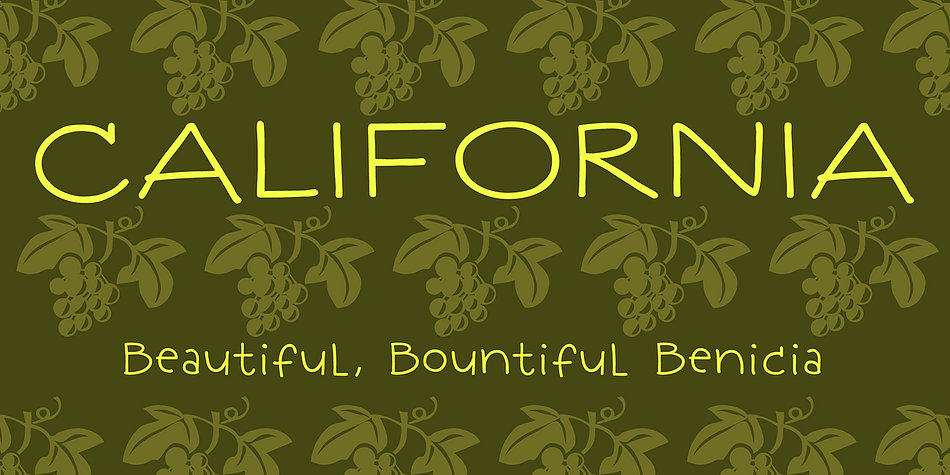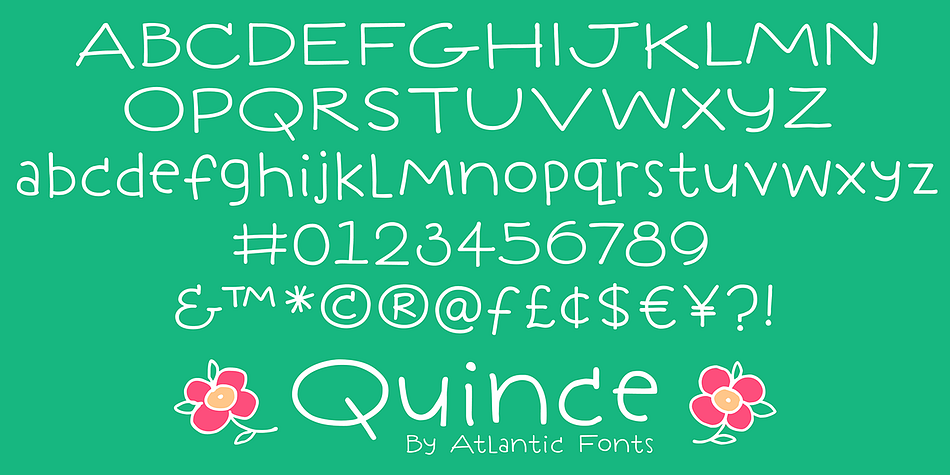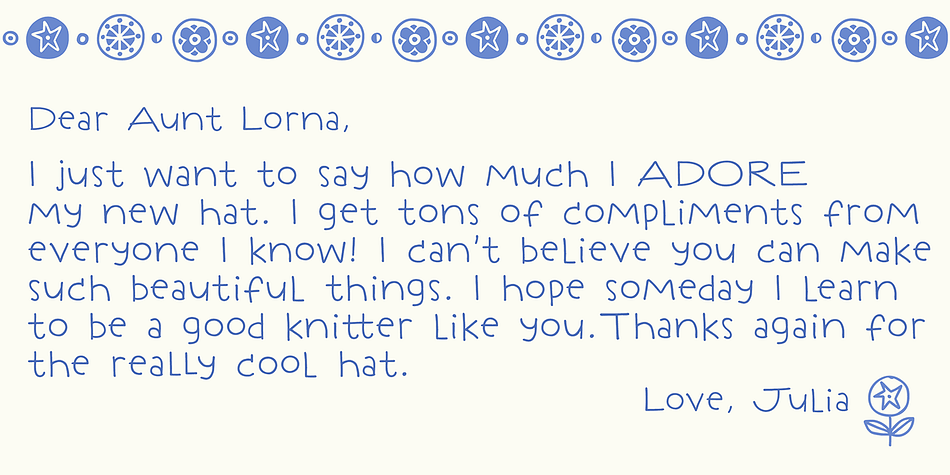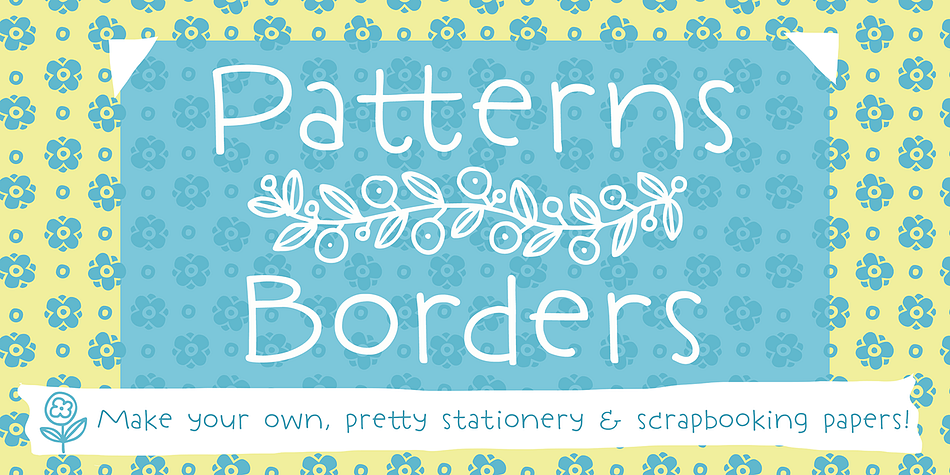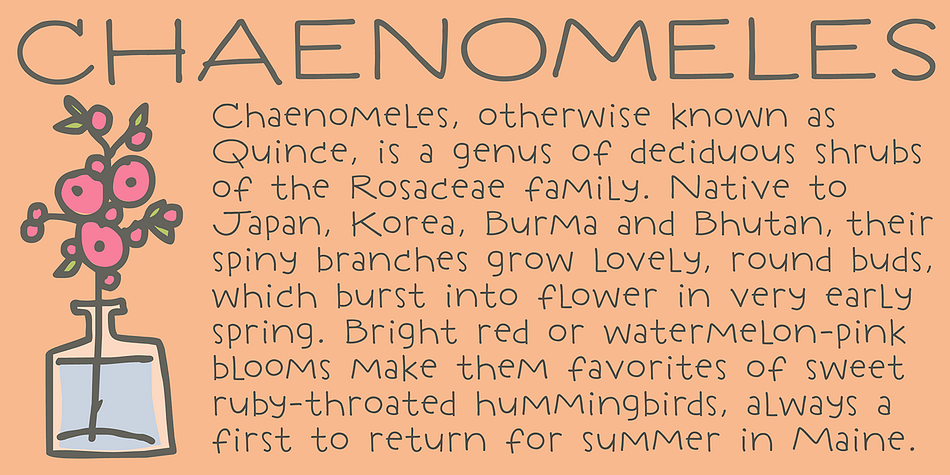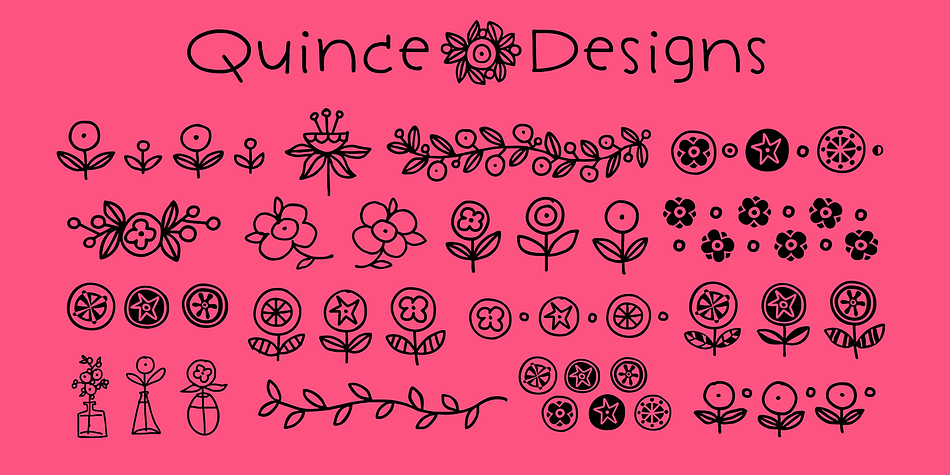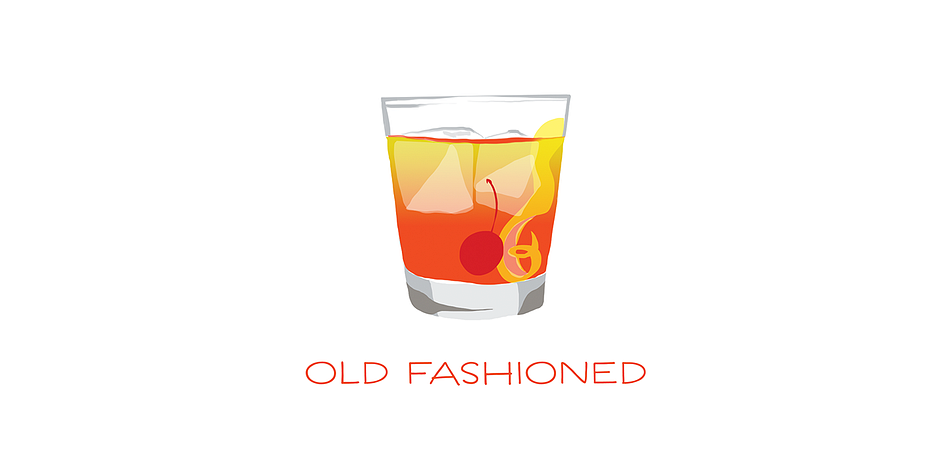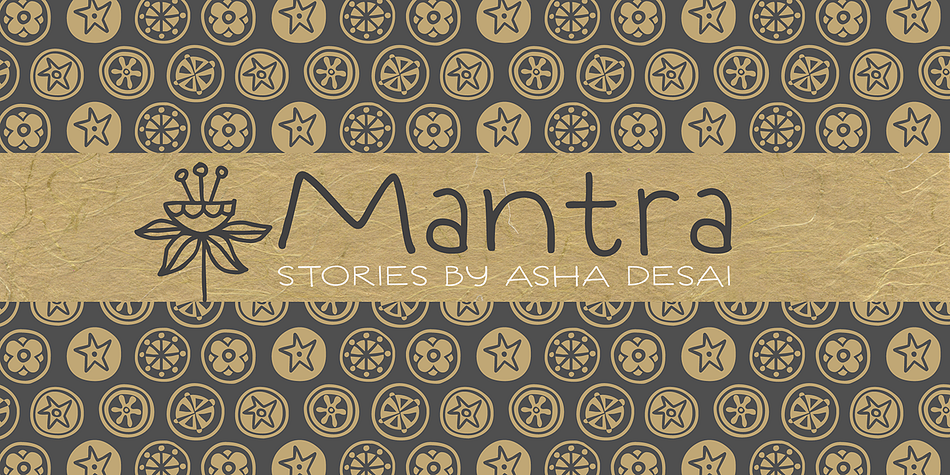
Quince is a dingbat and hand drawn font family. This typeface has two styles and was published by Atlantic Fonts.
Quince is a playful, zesty, handwritten font. Lower case letters are energetic and sweet, then as all-caps its essence shifts to more architectural and stylish. Both upper and lower case have a set of double-letter ligatures to keep it lively. Quince family also features Quince Designs, an original, floral picture font drawn by Amy Dietrich, rich with charming patterns, borders, and spots. See your projects bloom with Quince. Posters also include images from Kiwi Fruits, another picture font by Atlantic Fonts.